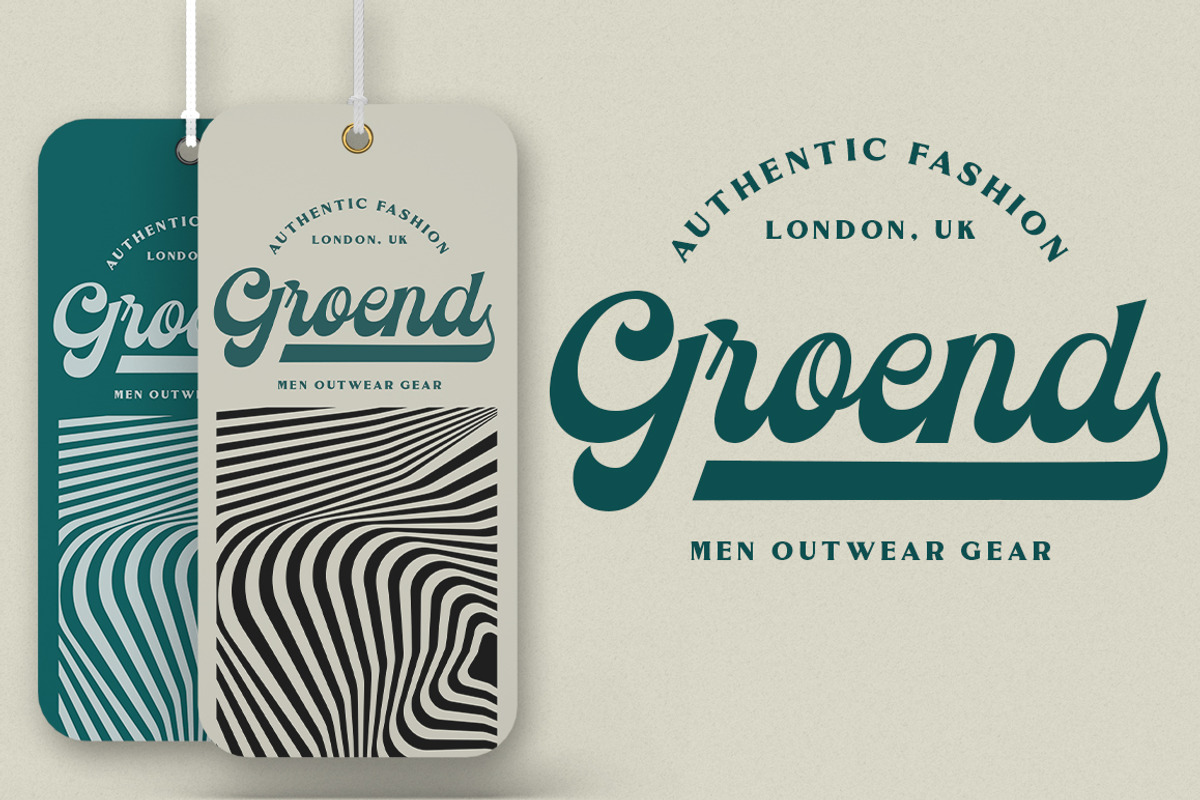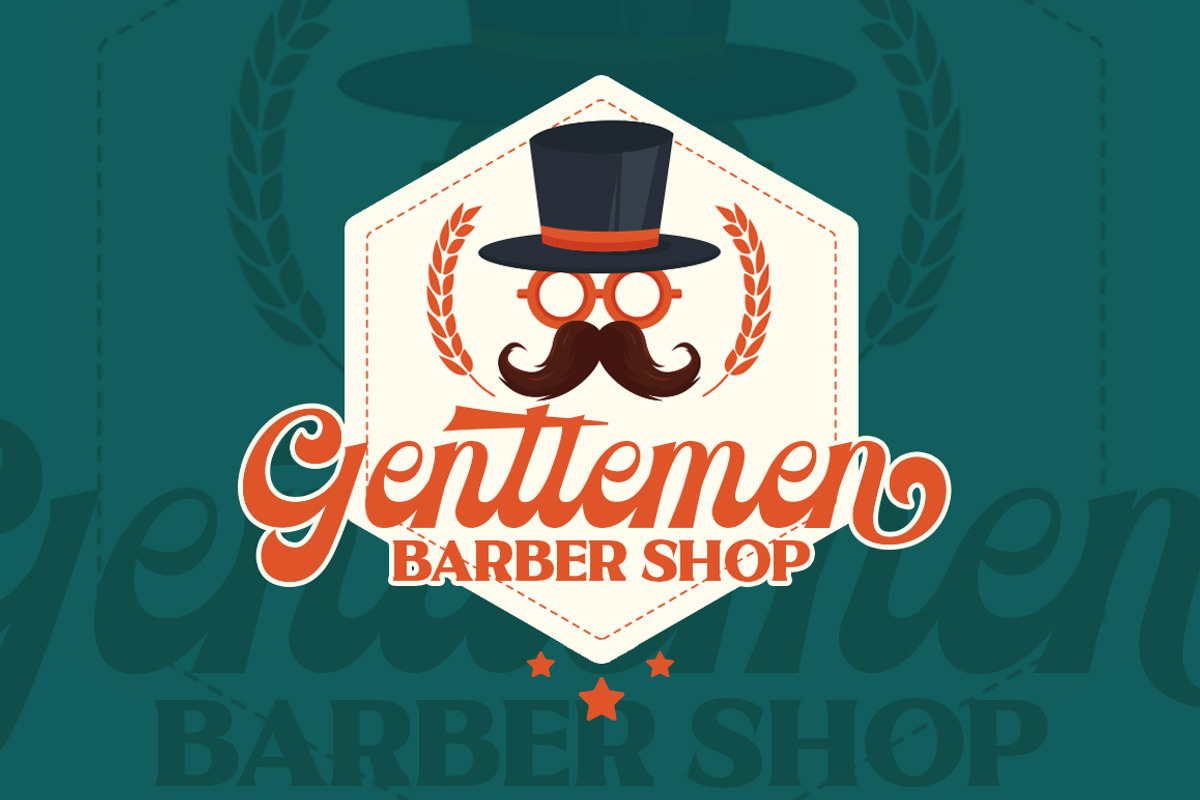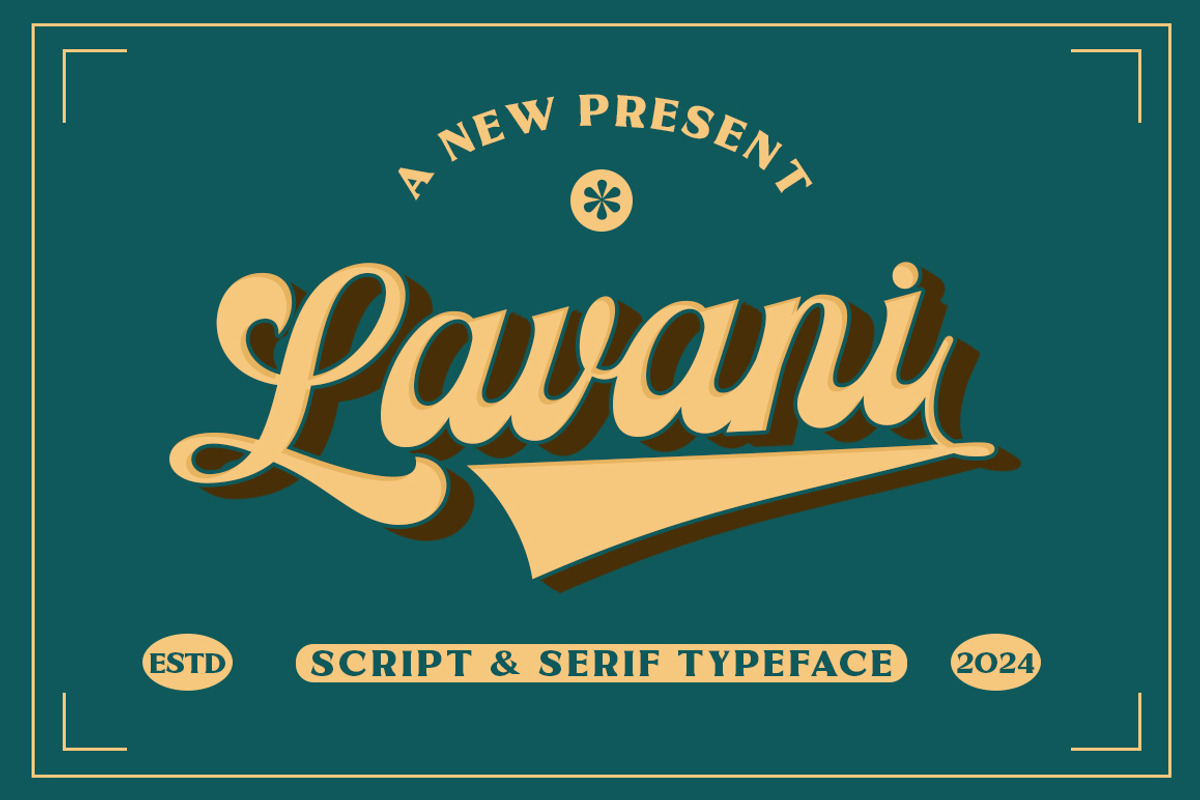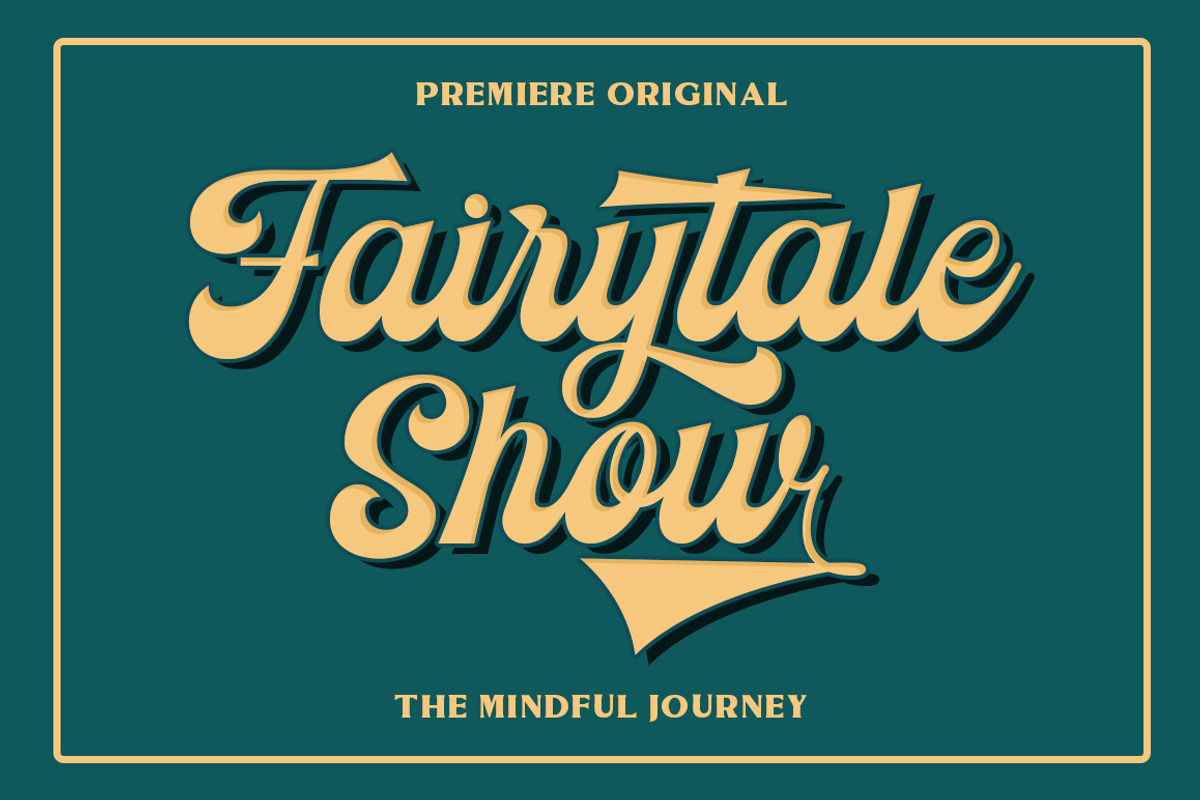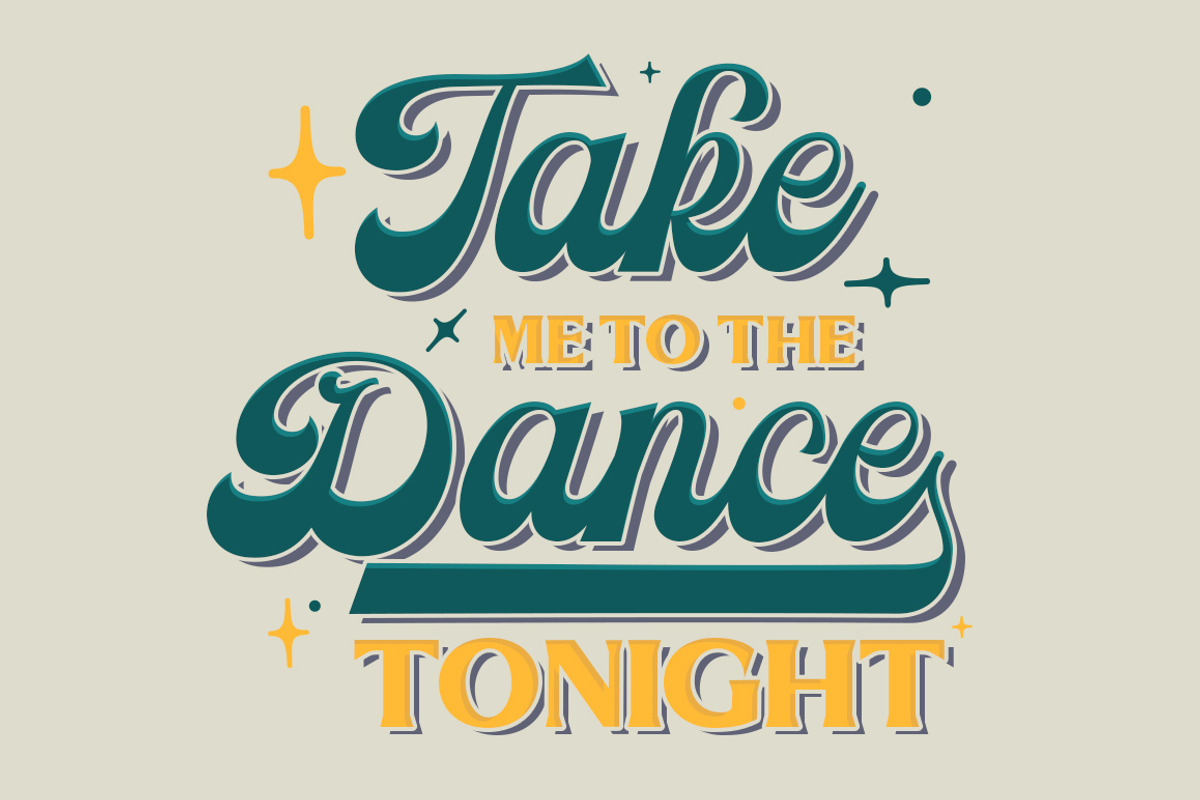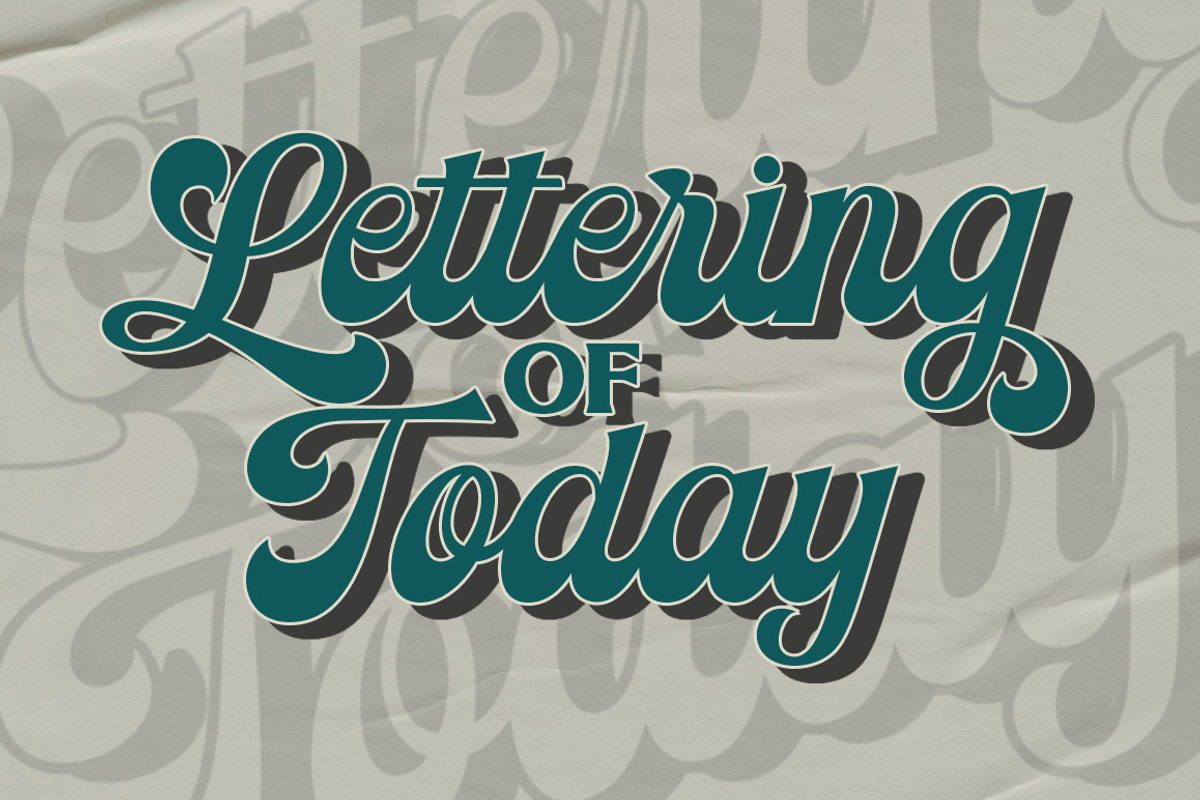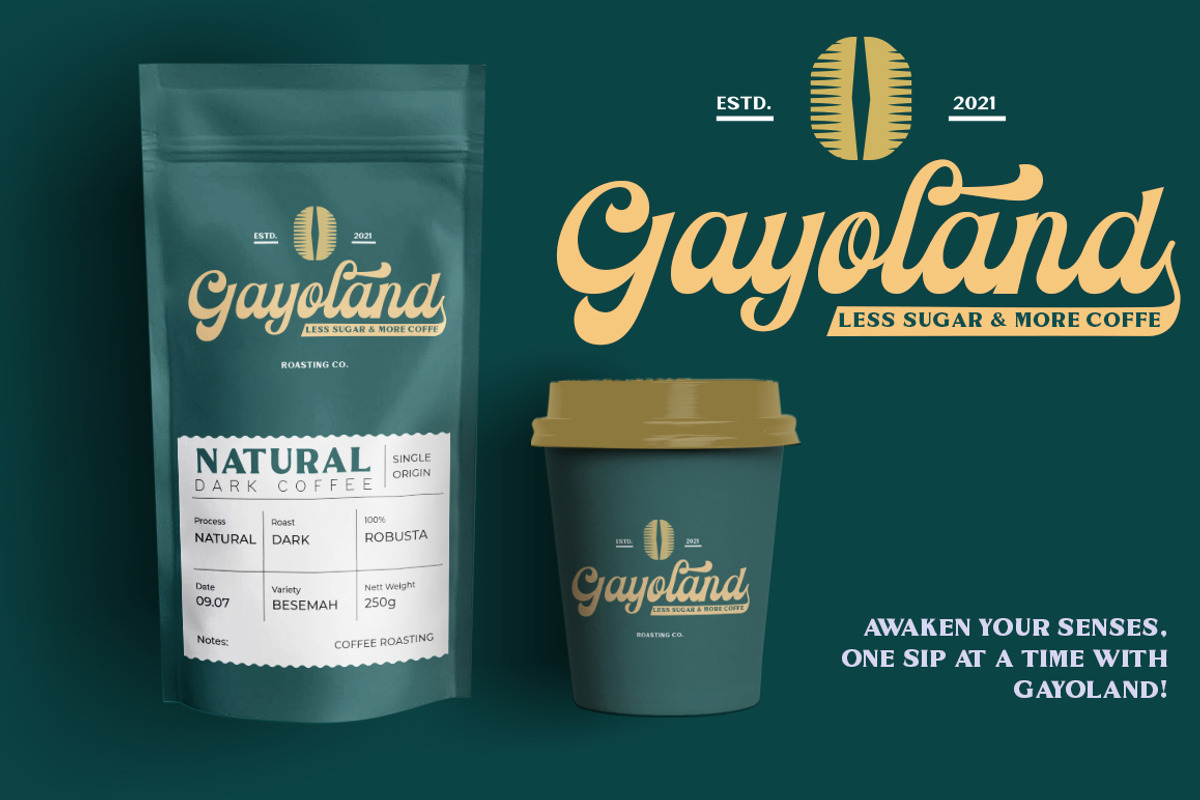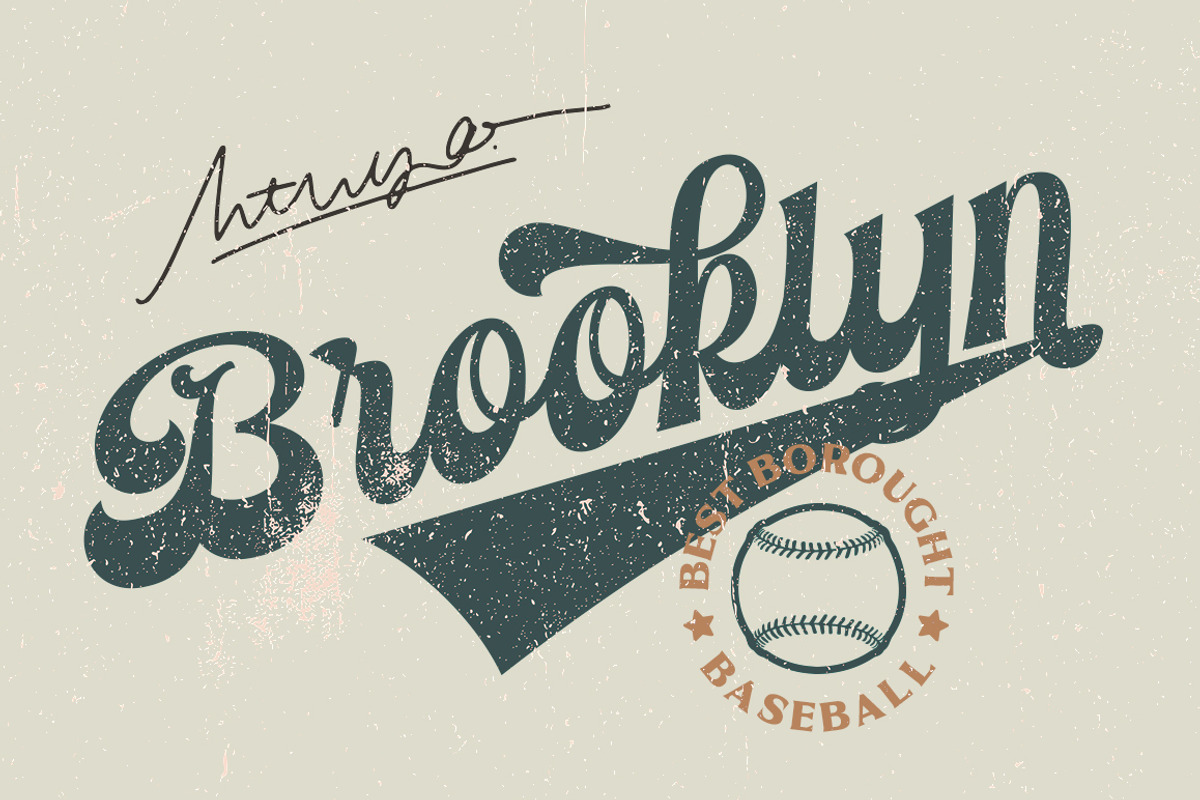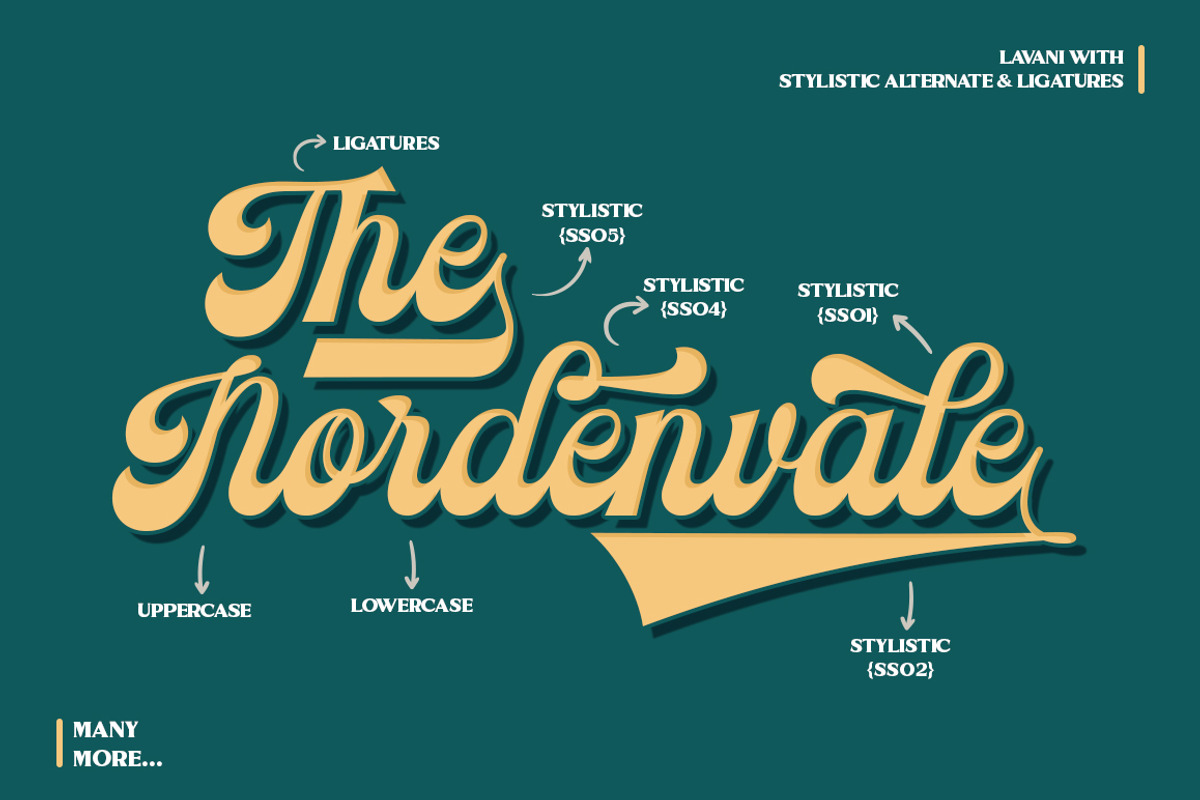
Lavani Script + Font Duo
Lavani Script retro font styled like a logotype letter.
created to help you design a logotype or writing style for your Brand or your client.
it has extensive language support, including European and Asian Latin scripts.
The font contains all the characters you need, including all punctuation and numbers. Lavani Script has 5 fonts, these four fonts are used using the layer method so that they can produce fonts that are attractive to look at, you no longer need to worry about thinking about how to give effects to the text.